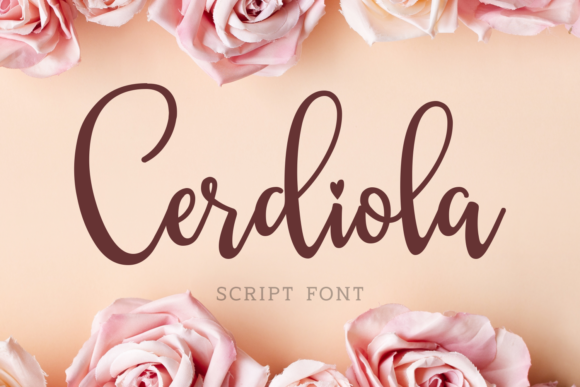
Fall in Love with the Allure of Handwriting
As you sit at your desk, surrounded by papers, pencils, and a dash of creativity, you know that moment when the perfect font can elevate your project from good to great. The words begin to flow, and your imagination runs wild with possibilities. It’s in these moments that the right font can make all the difference, setting the tone for a beautiful and lasting impression.
Enter Cerdiola Font, the perfect solution for all your crafting needs. This stunning script is designed to add a touch of elegance and sophistication to your designs, making it an invaluable tool for designers of all levels. With its unique charm and versatility, Cerdiola Font is the perfect addition to any project, from invitations and posters to digital art and more.
Cerdiola Font Key Features
- Unique Characteristics: Cerdiola Font features a unique, elegant script style with intricate flourishes and swashes, making it ideal for formal invitations, wedding stationery, and high-end branding.
Cerdiola Font Review
Cerdiola Font is a visually appealing typeface that has gained popularity among designers. Here’s my honest take on this font:
- Unique aesthetic: Cerdiola Font boasts an eclectic style that’s perfect for adding a touch of quirkiness to your designs.
- High legibility: The font is remarkably easy to read, even at smaller font sizes.
- Wide character set: Cerdiola Font includes a comprehensive set of characters, making it suitable for a variety of languages.
- Scalability: The font looks great at both large and small sizes, ensuring it’s versatile for various design applications.
- Limited font weights: Cerdiola Font is available in only a few font weights, which may limit its usability in certain design scenarios.
- No italic styles: The font lacks italic styles, which can be a drawback for designers who prefer to use italics for emphasis.
Overall, Cerdiola Font is a great choice for designers who want to add a unique touch to their work. While it has some limitations, its unique aesthetic, high legibility, and wide character set make it a valuable addition to any designer’s toolkit.
To get the most out of Cerdiola Font, use it for:
Headings and titles for a touch of elegance and sophistication.
Body text for a clean and modern look.
Emphasize key points or quotes with a bold or italic style.
Combine Cerdiola Font with other fonts for a unique and creative look.
Comparison: Inter is more neutral and timeless, while Cerdiola Font has a more unique and artistic feel.
Lato is a modern sans-serif font designed for use in digital products. It is highly legible and versatile, making it suitable for use in a wide range of applications, from body text to headings. It has a more relaxed and friendly feel compared to Cerdiola Font, making it ideal for use in creative and artistic projects.
Comparison: Lato is more relaxed and friendly, while Cerdiola Font has a more formal and elegant feel.
Open Sans is a modern sans-serif font designed for digital use. It is highly legible and versatile, making it suitable for use in a wide range of applications, from body text to headings. It has a more neutral and clean feel compared to Cerdiola Font, making it ideal for use in corporate